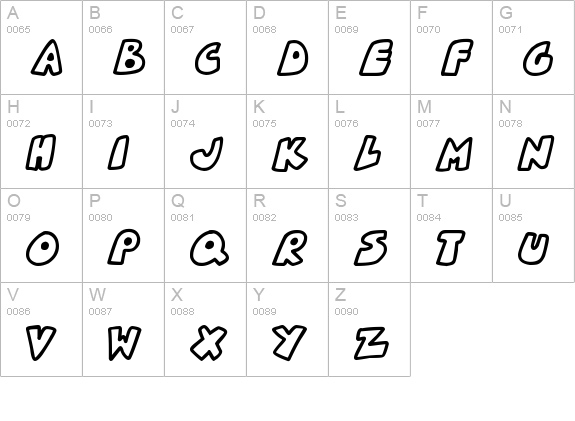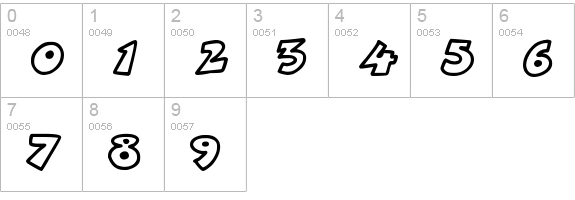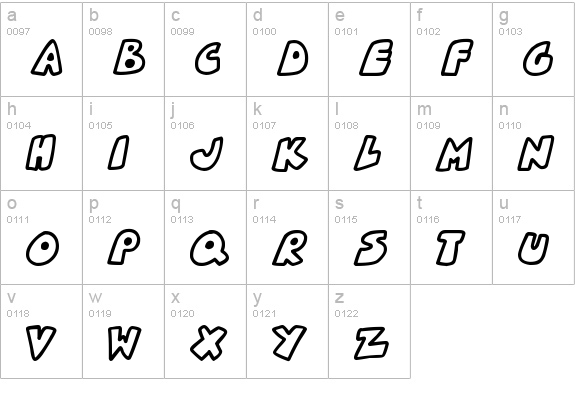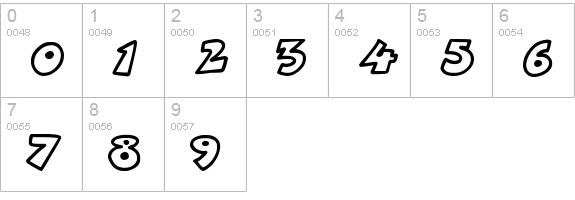
Planetoid X Font Details
Planetoid X is a free for personal use font in the Fancy > Comic category, designed by Darrell Flood. It has been downloaded 83 times and is available for Windows, Mac and Linux.
Planetoid X font is a stunning and futuristic typeface that will elevate your designs to a whole new level. With its sleek lines and modern aesthetic, this font is perfect for a variety of projects, from branding to display designs. The futuristic vibes of Planetoid X will captivate your audience and make a lasting impression.